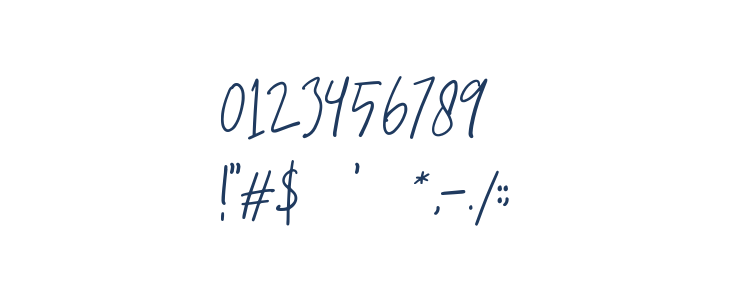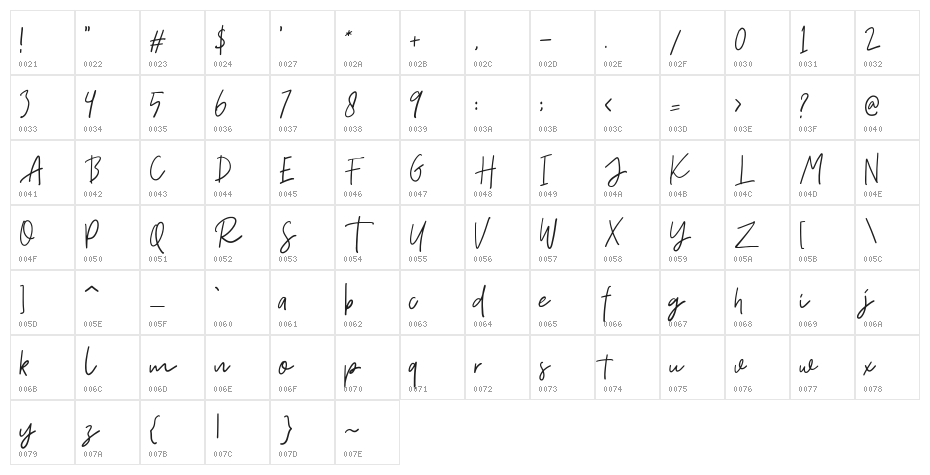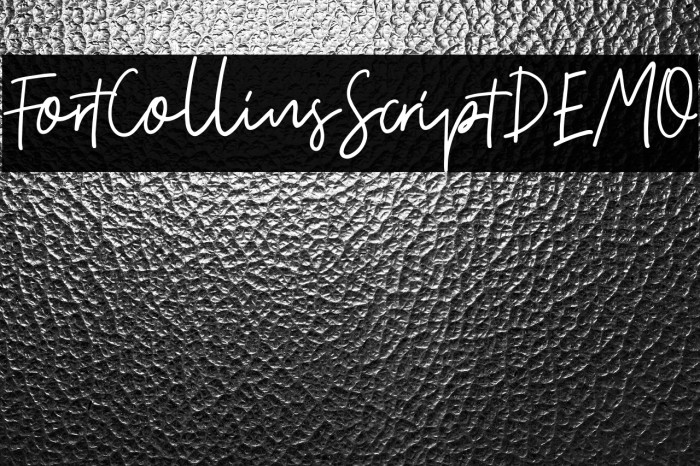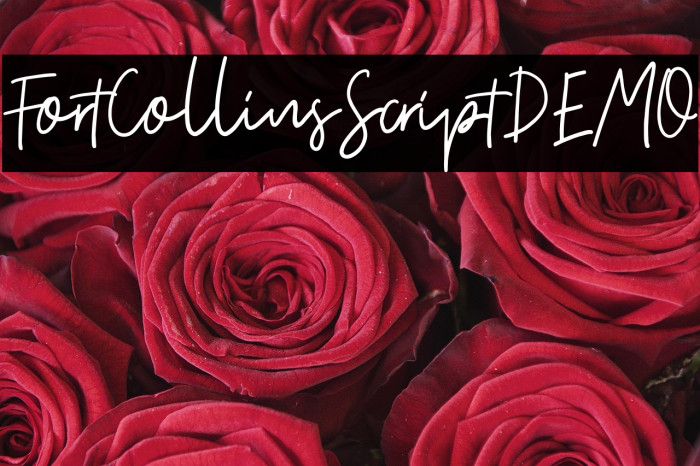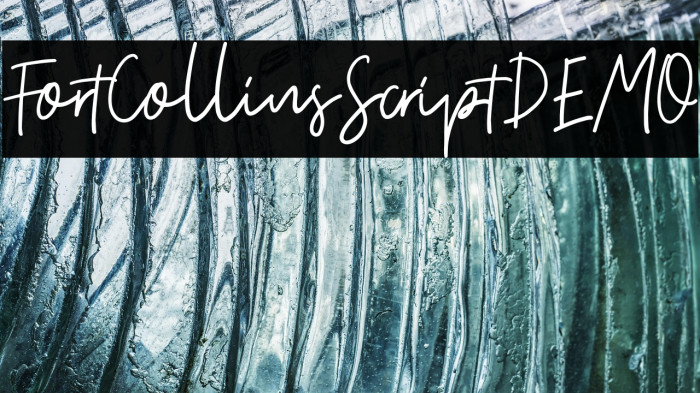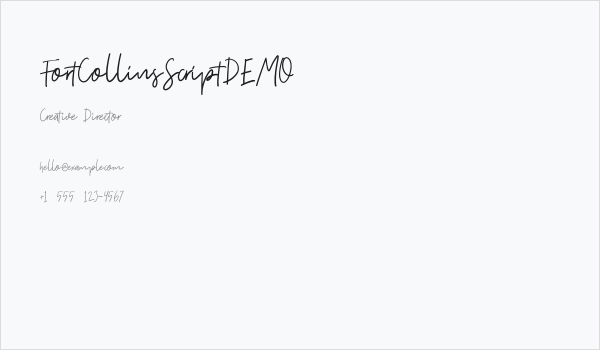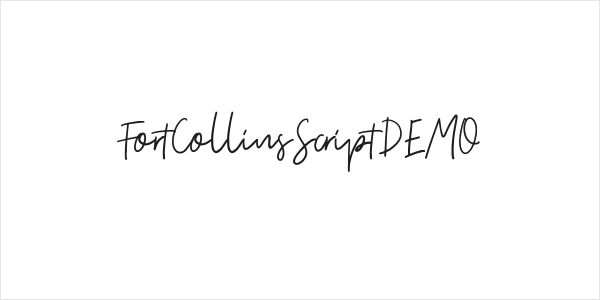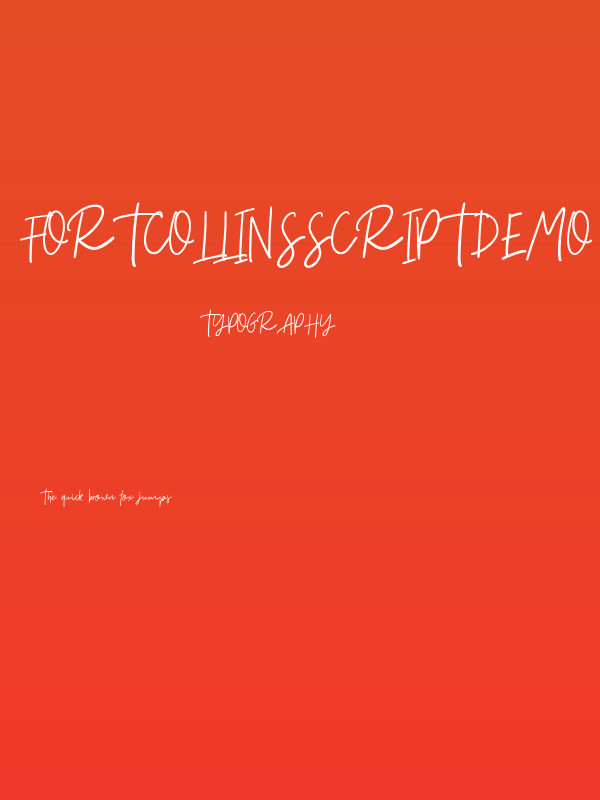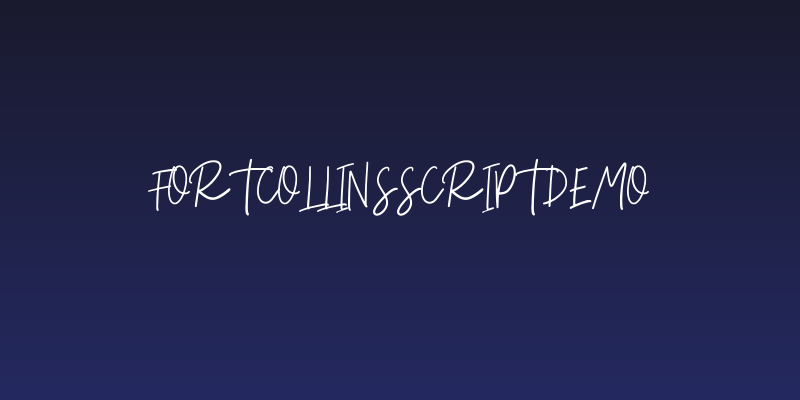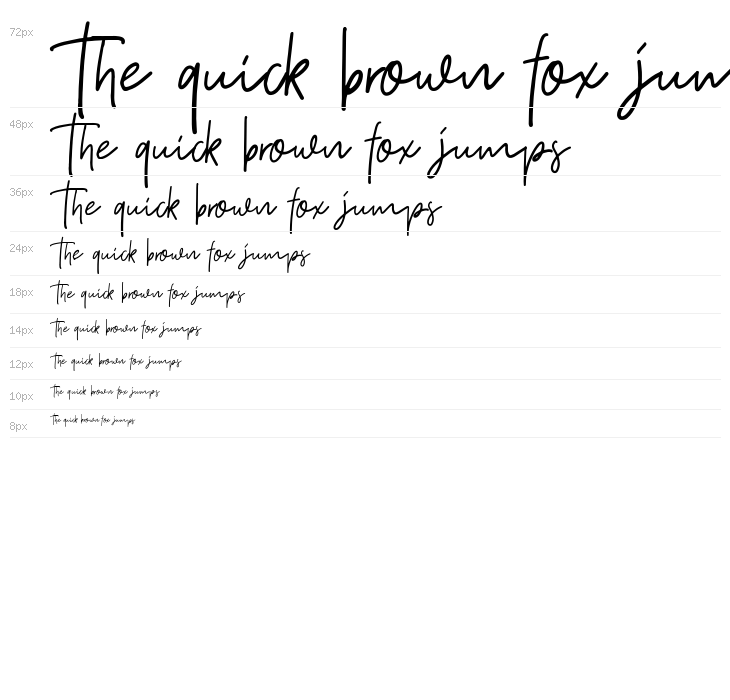
FortCollinsScriptDEMO Font
FortCollinsScriptDEMO Description
This font exudes a casual and lively handwritten style, characterized by its fluid and dynamic strokes. The letters are slightly slanted, giving a sense of motion and spontaneity. The uppercase letters are bold and prominent, while the lowercase letters maintain a consistent flow, enhancing readability. The numerals are well-integrated with the overall style, maintaining the same energetic feel. Special characters are creatively designed, adding to the font's playful nature. This font is perfect for projects that require a personal touch or a sense of informality.
| Proposed Projects | Ideal for greeting cards, invitations, personal branding, and social media graphics. |